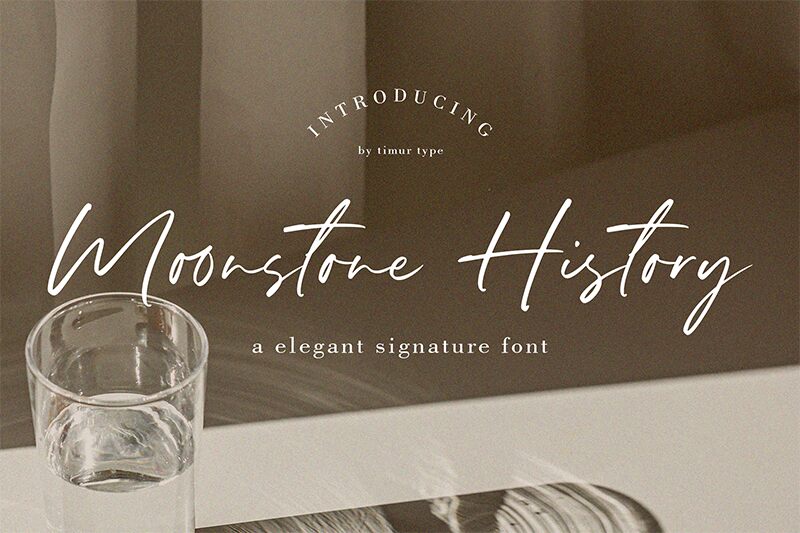
Moonstone History
Moonstone History font by Timur Type is a free handwritten font crafted with elegance, expressiveness, and casual elegance. Its sophisticated mood carries an organic flow and personal touch that invites warmth. The overall aesthetic is modern and fresh, making it suitable for contemporary projects.
Moonstone History is perfect for product packaging, branding projects, magazines, social media content, wedding materials, posters, greeting cards, book covers, websites, blog layouts or simply to enhance any background with expressive words.
Moonstone History Font
Moonstone History Font also offers multilingual support and ligatures.